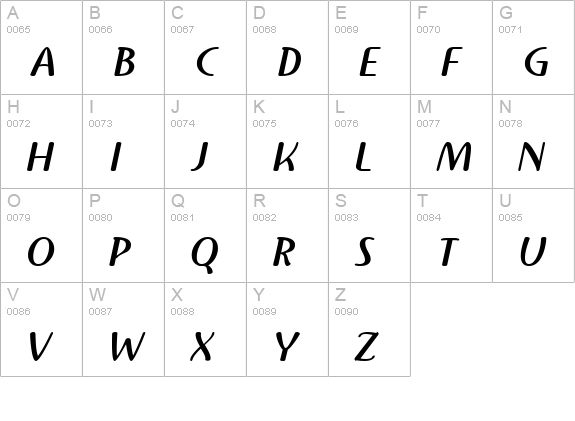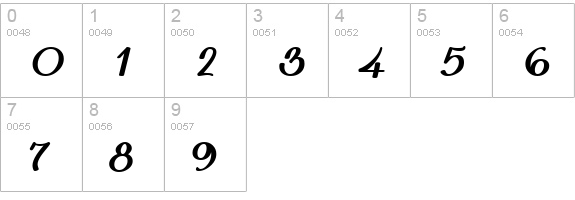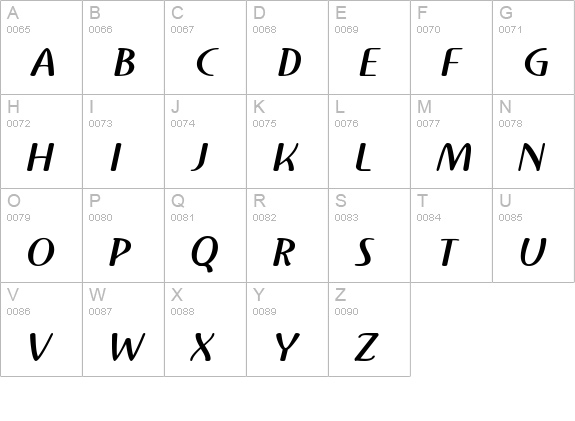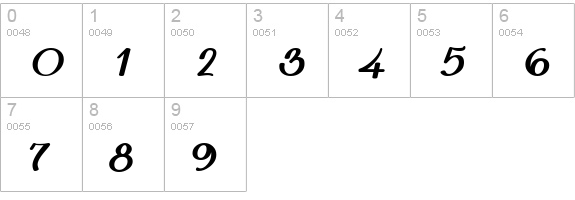
IngrianaCasual BoldItalic Font Details
Below you can preview IngrianaCasual BoldItalic in uppercase [A-Z], lowercase [a-z] and numbers [0-9]. You can also read the author's notes and license information before downloading.
IngrianaCasual BoldItalic is a stunning and versatile font that effortlessly combines the elements of casual and boldness with a touch of elegance. With its unique and distinctive italic style, this font is perfect for adding a touch of sophistication to any design project. The bold strokes and slanted letterforms of IngrianaCasual BoldItalic create a sense of movement and energy, making it ideal for eye-catching headlines, logos, and branding materials. Whether you're designing a poster, flyer, or website, this font will instantly grab the attention of your audience and make a lasting impression. What sets IngrianaCasual BoldItalic apart is not just its exceptional design, but also the fact that it is available for free. Yes, you heard it right! This remarkable font can be freely downloaded at FontsMarket.com, allowing you to enhance your creative projects without having to worry about any extra costs. So why wait? Take advantage of the opportunity to download IngrianaCasual BoldItalic for free at FontsMarket.com and elevate your designs to a whole new level. Whether you're a professional designer or a hobbyist, this font will empower you to create visually stunning and impactful designs that stand out from the crowd.